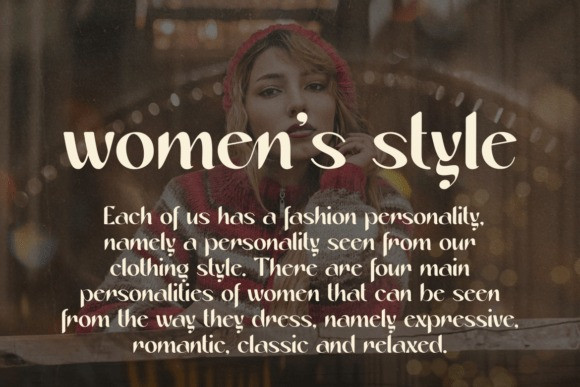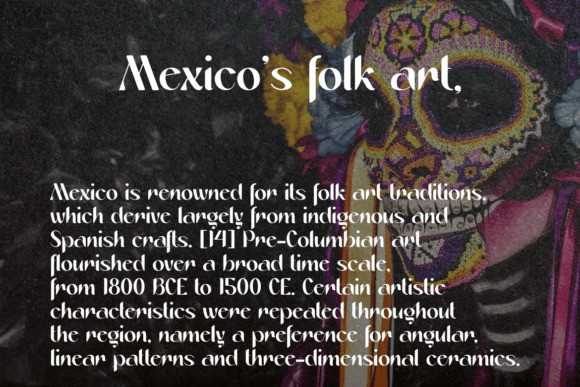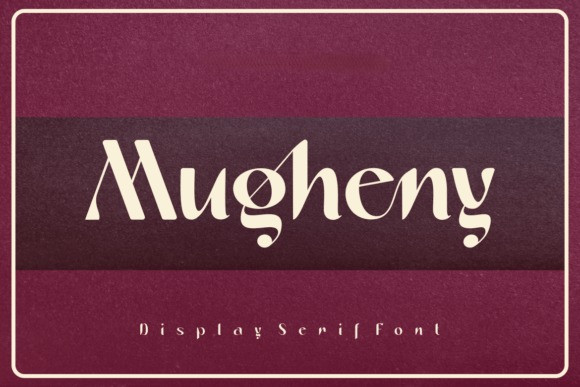
Mugheny Font
Mugheny Font is a stunning display serif font with dramatic curves and stylish ligatures. Designed to make a bold statement, it’s ideal for logos, boutique branding, headlines, and creative print work. With its artistic stroke endings and vintage-modern fusion, Mugheny stands out effortlessly.